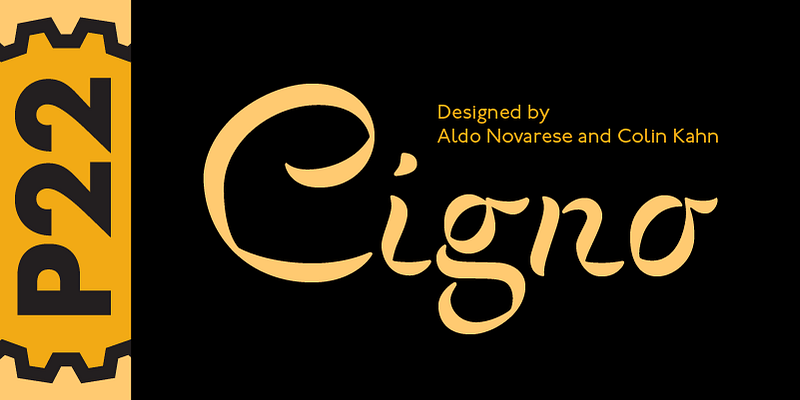
P22 Cigno Font Free Download is an elegant and graceful serif typeface designed with fine detailing and a sophisticated aesthetic. Inspired by classical calligraphy and refined design principles, P22 Cigno is perfect for projects requiring high-end branding, editorial layouts, invitations, and luxury product packaging. Its delicate yet strong character forms provide an air of elegance and professionalism.
The P22 Cigno Font features smooth curves and balanced proportions that make it highly versatile. Whether used for display text, such as headlines and logos, or in smaller text for body copy, it maintains legibility and elegance across various mediums.